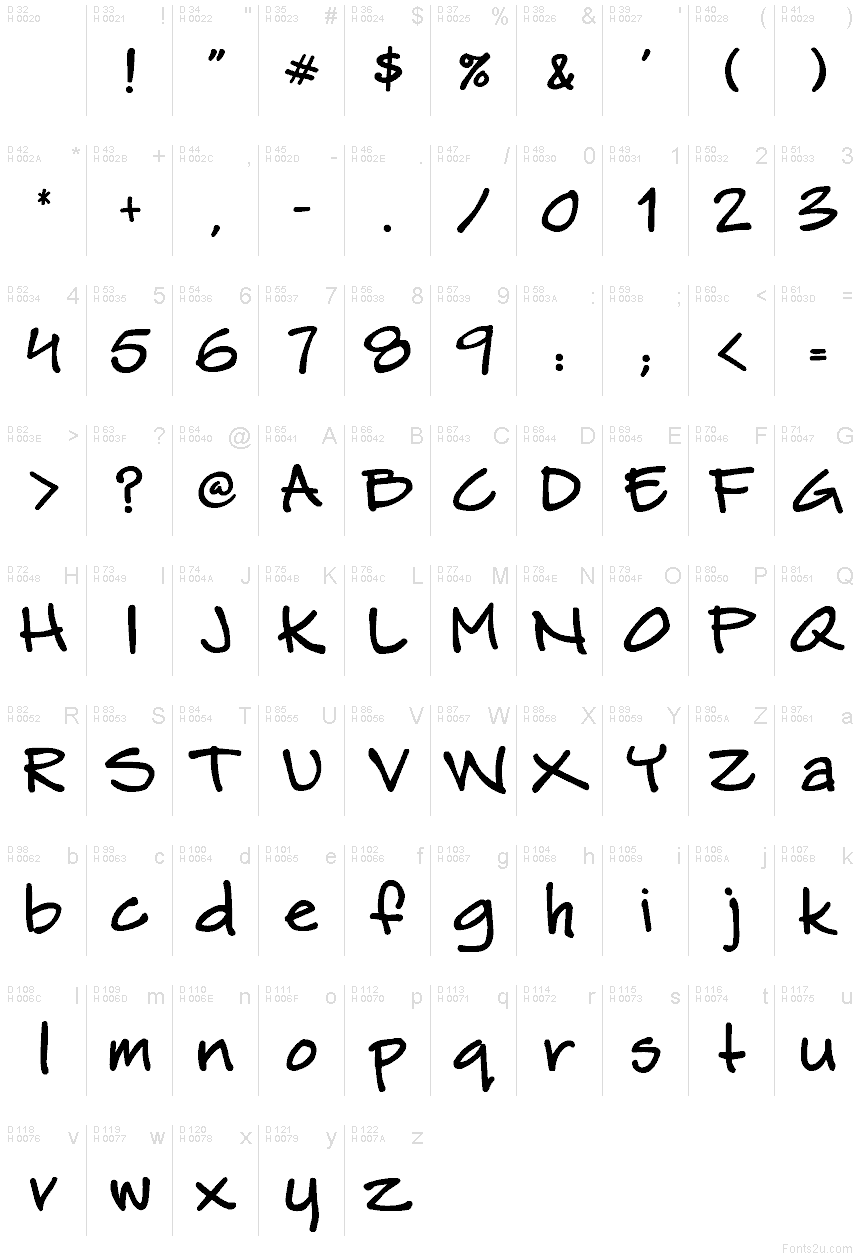
Garf - Normal
Garf font by Gary Lyons is a casual free handwritten font with an artistic quality. It holds a modern aesthetic and approachable tone suitable for different types of younger audiences, mainly students. The characters have a spontaneous hand-drawn presence that is both appealing and relaxing to the viewer. Their simplicity makes the text they form legible while adding life to it.
Explore Garf in various applications like posters, flyers, book covers, storybooks, magazines, websites, social media posts, banners of all sizes, or personal artwork. Combine it with illustrations and pictures or make headlines and descriptions stand out simply by themselves.